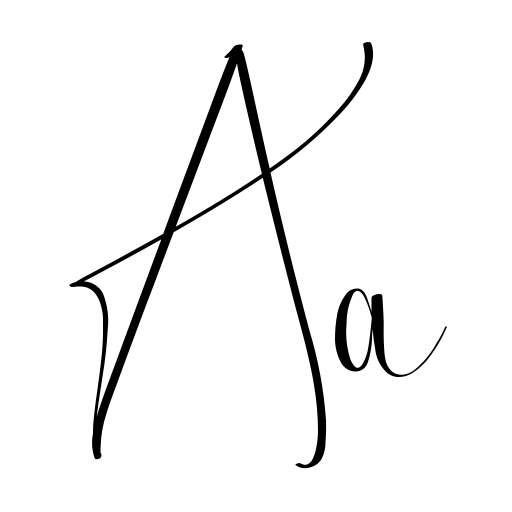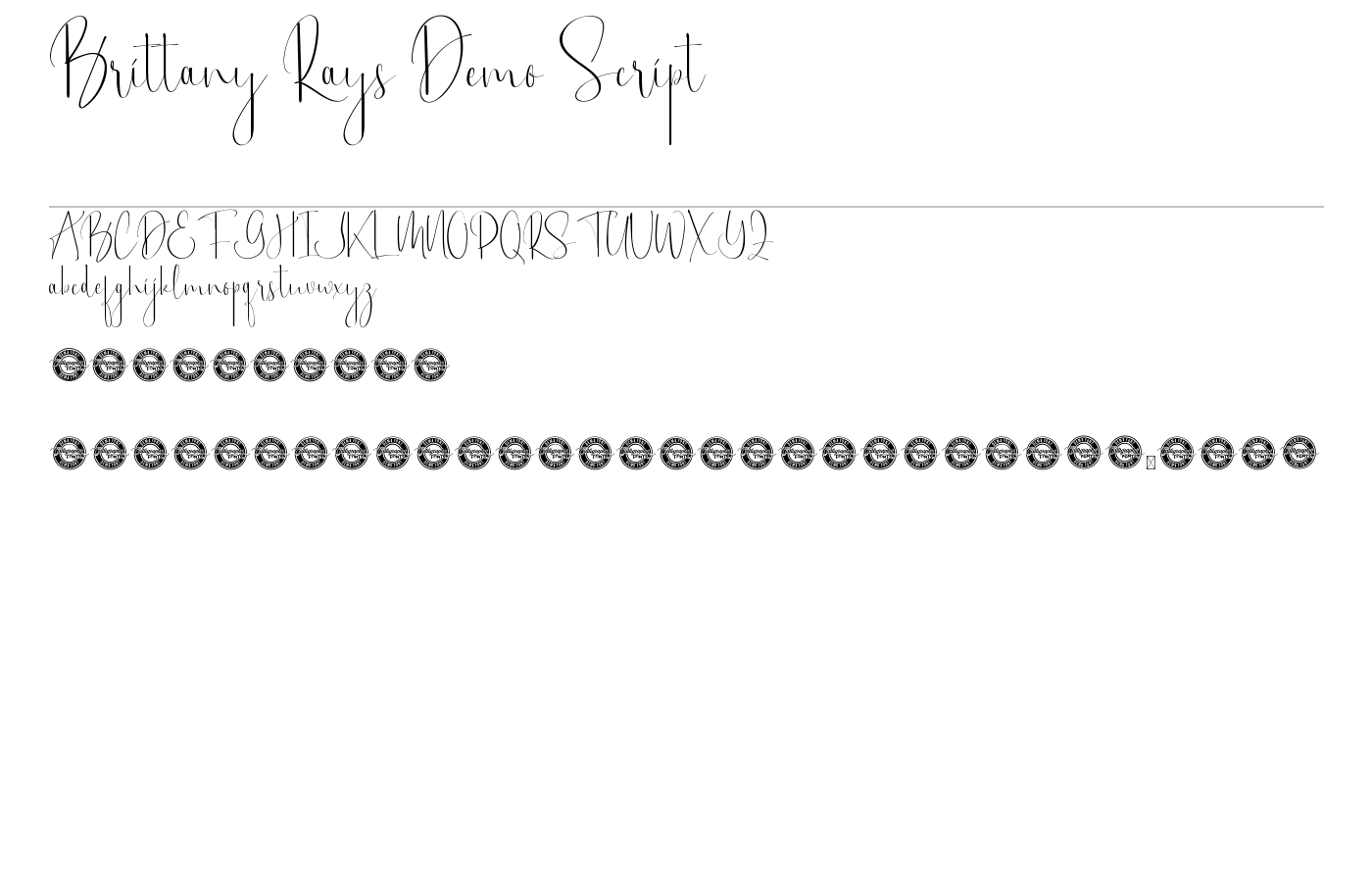
Brittany Rays Demo is a delicate script font characterized by its extremely thin, flowing lines and elegant, handwritten style. Its tall, narrow letterforms with graceful loops and flourishes give it a refined and sophisticated feel, making it ideal for wedding invitations, luxury branding, and feminine editorial designs where a personal, artistic touch is desired. This font works best in large sizes for display use, as its fine strokes and intricate details may be less legible at smaller scales.
Brittany Rays Demo Font
About Brittany Rays Demo Font
| Font family | Brittany Rays Demo Font |
| Designer | Widiyanti & Sarah SP |